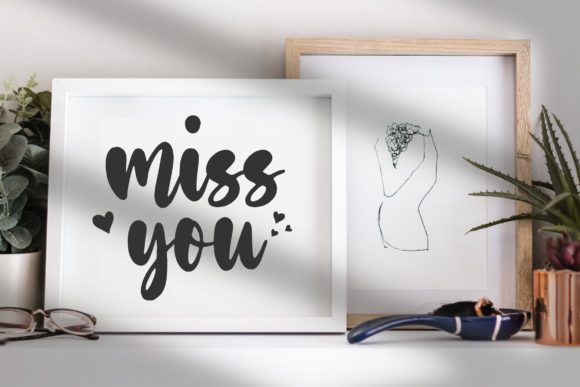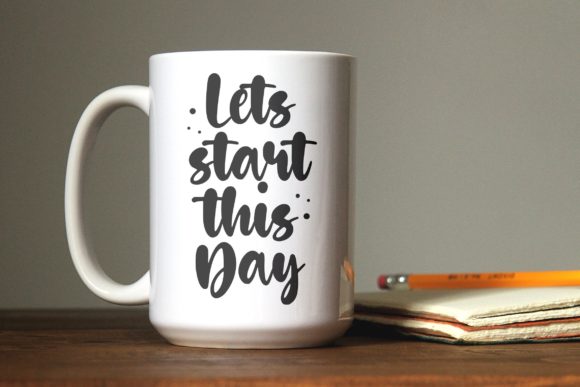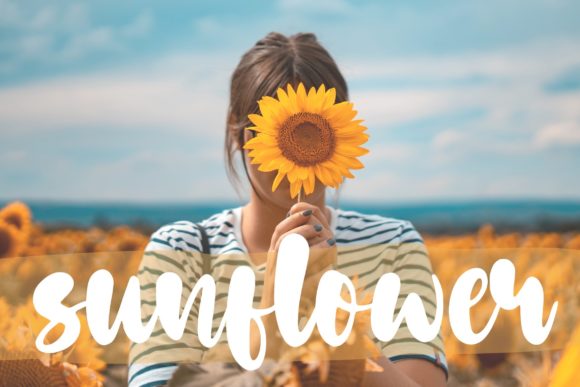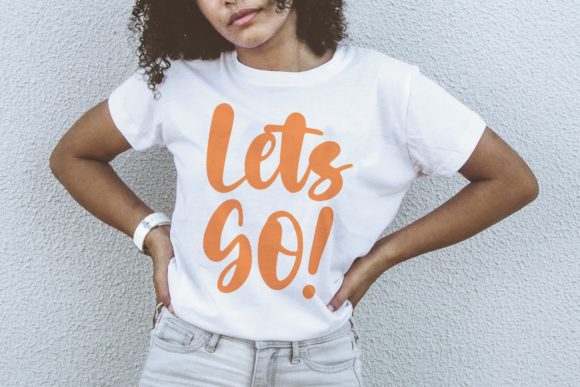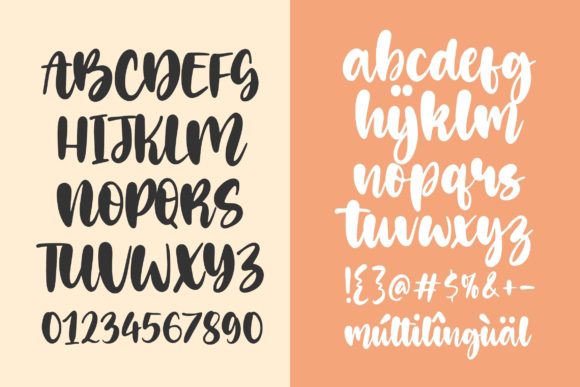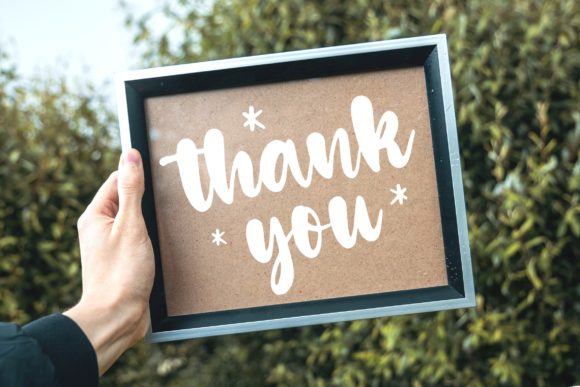
The Art of Making Memories with the Golden Dates Font
As a designer, there’s nothing quite like the feeling of bringing a client’s vision to life. Whether it’s a wedding invitation, a heartfelt thank you card, or a logo that speaks to a brand’s soul, the right font can make all the difference. And when it comes to adding a touch of elegance and whimsy, few fonts do it better than the Golden Dates Font.
This stylish script font is a designer’s dream come true, offering a beautiful handwritten touch that elevates any design to new heights. Whether you’re working on a high-end wedding invitation or a simple greeting card, the Golden Dates Font is sure to impress. Its versatility and charm make it a valuable addition to any designer’s toolkit, and its unique aesthetic is sure to set your designs apart from the crowd.
Golden Dates Font Key Features
- Font Family: Golden Dates Font is a unique, elegant font family designed for various applications, including logos, headings, and body text.
- Unique Characteristics: Golden Dates Font features a unique blend of vintage and modern elements, with intricate details and subtle flair, making it perfect for adding a touch of elegance to any design.
- Character Set: Includes a comprehensive character set, including uppercase and lowercase letters, numbers, punctuation, and special characters, ensuring that you have everything you need to create professional-looking designs.
Designer Review: Golden Dates Font
I’ve had the chance to work with Golden Dates Font, and here’s my honest take on it.
✨ The font’s elegant, cursive design is a perfect fit for projects that need a touch of sophistication and romance. It’s especially great for wedding invitations, love stories, and other sentimental themes.
- Beautiful, flowing lines that add a sense of movement and emotion.
- Supports a wide range of languages, making it a versatile choice for international projects.
- Easy to read, even at smaller font sizes, which is a bonus for longer texts.
⚠️ While Golden Dates Font is lovely, it does have some limitations that might make it less suitable for certain projects.
- May not be the best choice for projects that require a bold, modern look, as it can come across as a bit too ornate.
- Lack of bold weight options can make it difficult to create striking headings or titles.
- May not be as readable at very large font sizes, which could be a concern for projects that need big, bold typography.
Overall, Golden Dates Font is a beautiful, elegant choice that’s perfect for sentimental projects. While it may have some limitations, its unique design and wide language support make it a great addition to any designer’s toolkit.
Tips for Getting the Most Out of Golden Dates Font
Use the Golden Dates font for creating elegant and sophisticated designs.
Pair it with other elegant fonts to create a cohesive look.
Use it for headings, titles, and other prominent text elements to add a touch of luxury.
Formal event invitations and announcements.
Luxury brand marketing materials.